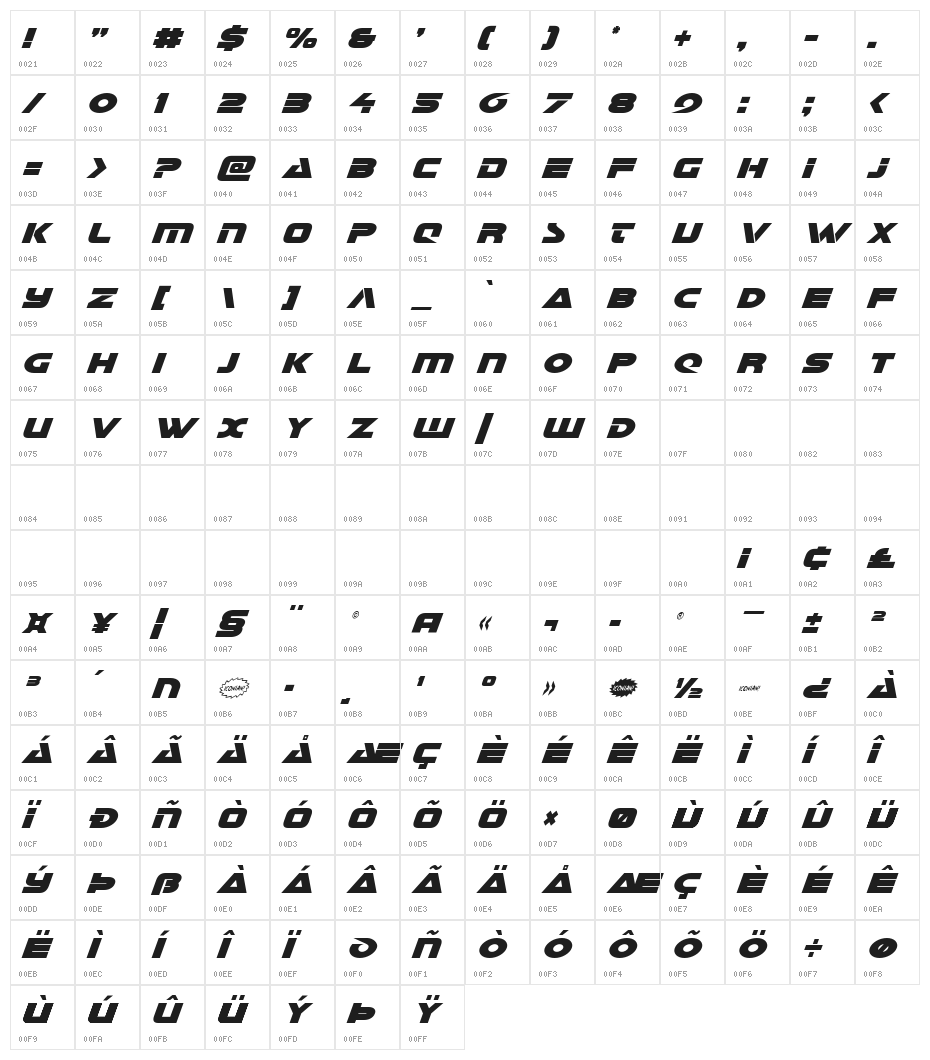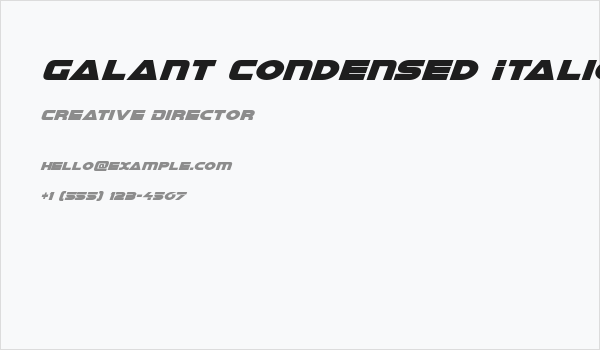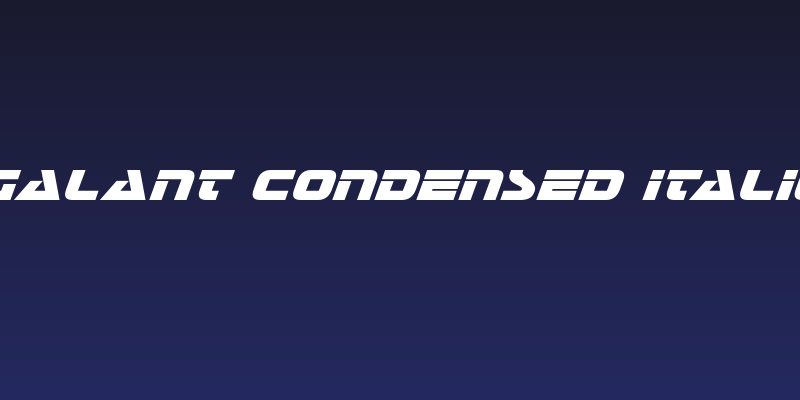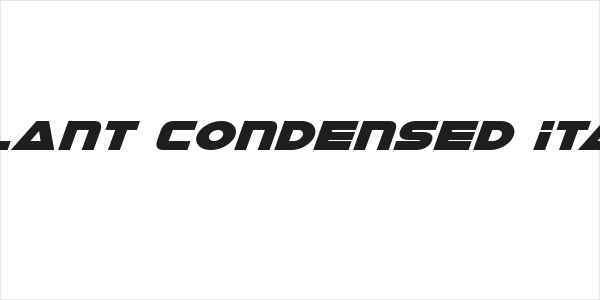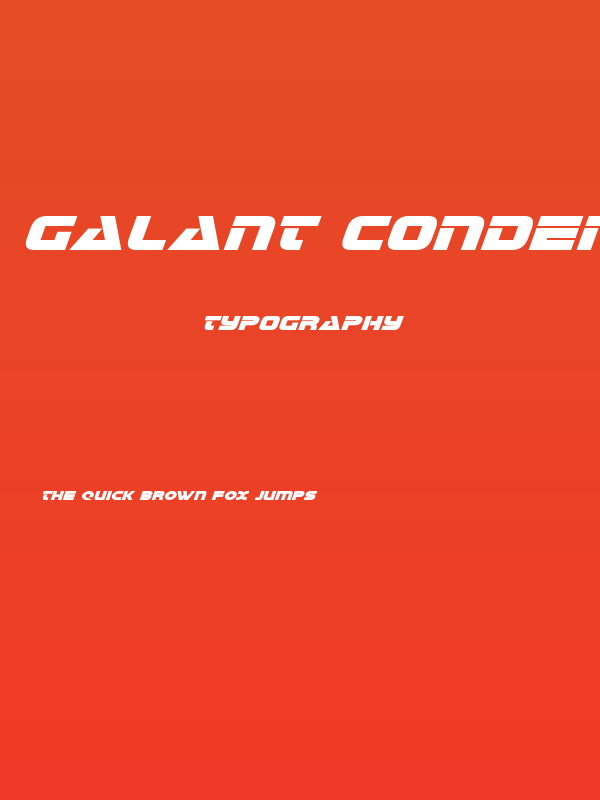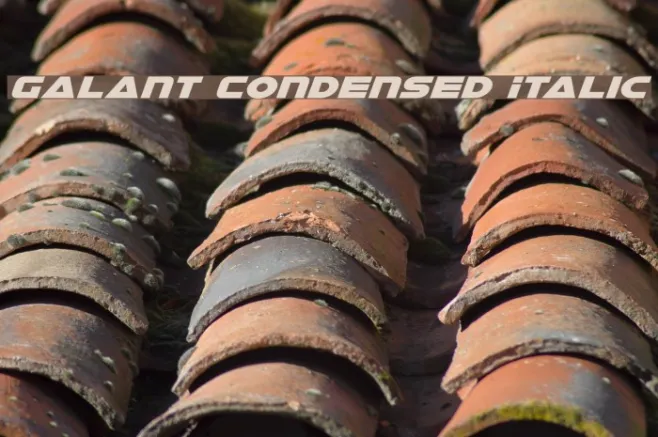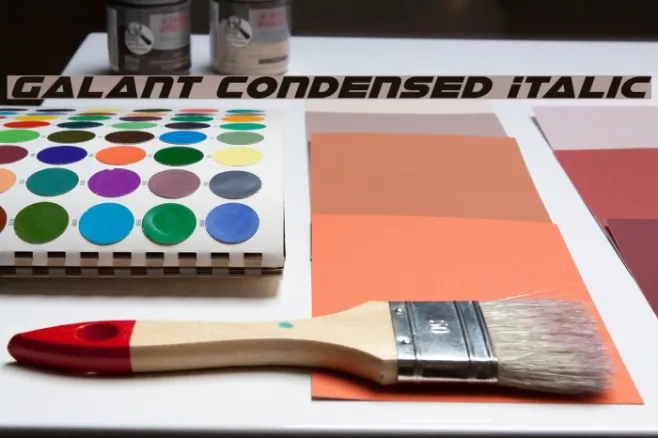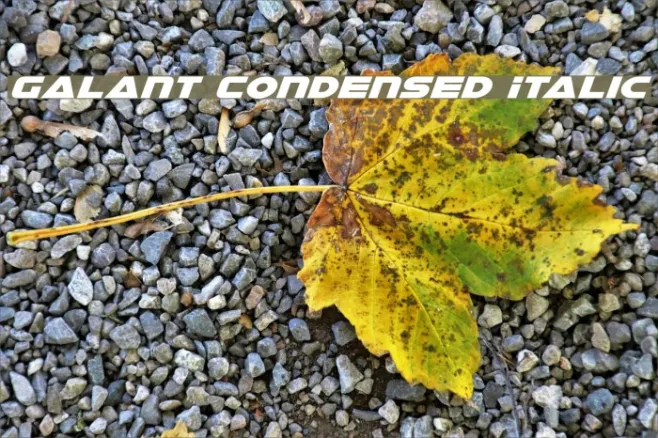
Galant Condensed Italic Font
Galant Condensed Italic Description
This font features a bold, italicized style with a distinctly modern and futuristic appearance. The characters are condensed, giving them a sleek and streamlined look. The strokes are thick and consistent, providing a strong visual impact. The angular design of the letters adds a dynamic and energetic feel, making it suitable for attention-grabbing headlines or logos. The font maintains a uniform width across all characters, ensuring a cohesive and harmonious appearance. The spacing between characters is tight, enhancing the compact and efficient design.
| Proposed Projects | Ideal for use in technology branding, sports team logos, or dynamic advertising campaigns. |